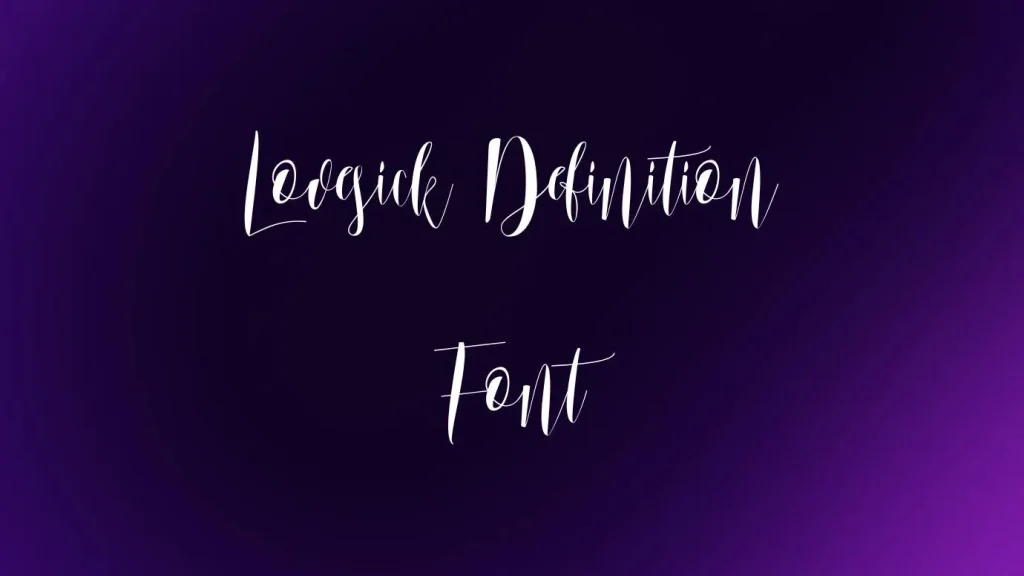
The author created this typeface by hand. The texture is made up of medium strokes with bubbly corners. This particular large text font is ideal due to its
Cuong Truong designed this modern calligraphy font with a stylish look and a laid-back yet stunning vibe. The Lovesick Definition Font allows you to create designs that appeal to all. It belongs to the Regular font family.
The author created this typeface by hand. The texture is made up of medium strokes with bubbly corners. This particular large text font is ideal due to its styling.
This font has amazing pairing status and can be paired with the just love calligraphy script font. Use the Lovesick Definition Typeface to give your project a distinctive appearance. Despite the classic typography, the design is unique. Both OTF and TTF file formats for the font are supported.
This amazing font has trendy and at the same time classy features and glyphs that can be used in a variety of settings. The font is available in three weights and is suitable for use in both body text and headlines and different designer projects. Here you can see the alphabet structure of this typeface.
Where to Use Lovesick Definition Font?
This fantastic font is perfect for branding, stationery, quotations, wedding invitations, wedding programs, picture watermarks, logos, signatures, commercials, business cards, album covers, business cards, magazines, apparel, posters, etc.
You may combine this font with lisalovely calligraphy font and create stunning projects. Create wedding invites and cards with the Lovesick Definition Typeface, label red wine, or use it in your company. This can be used for any large tasks that call for a handwritten feel.
With this typeface, you may create any kind of design job. Sending greetings or wedding invitations? This lovely font will make your writing stand out. This item can also be used to create a magazine, poster, outfit, or premium packaging.